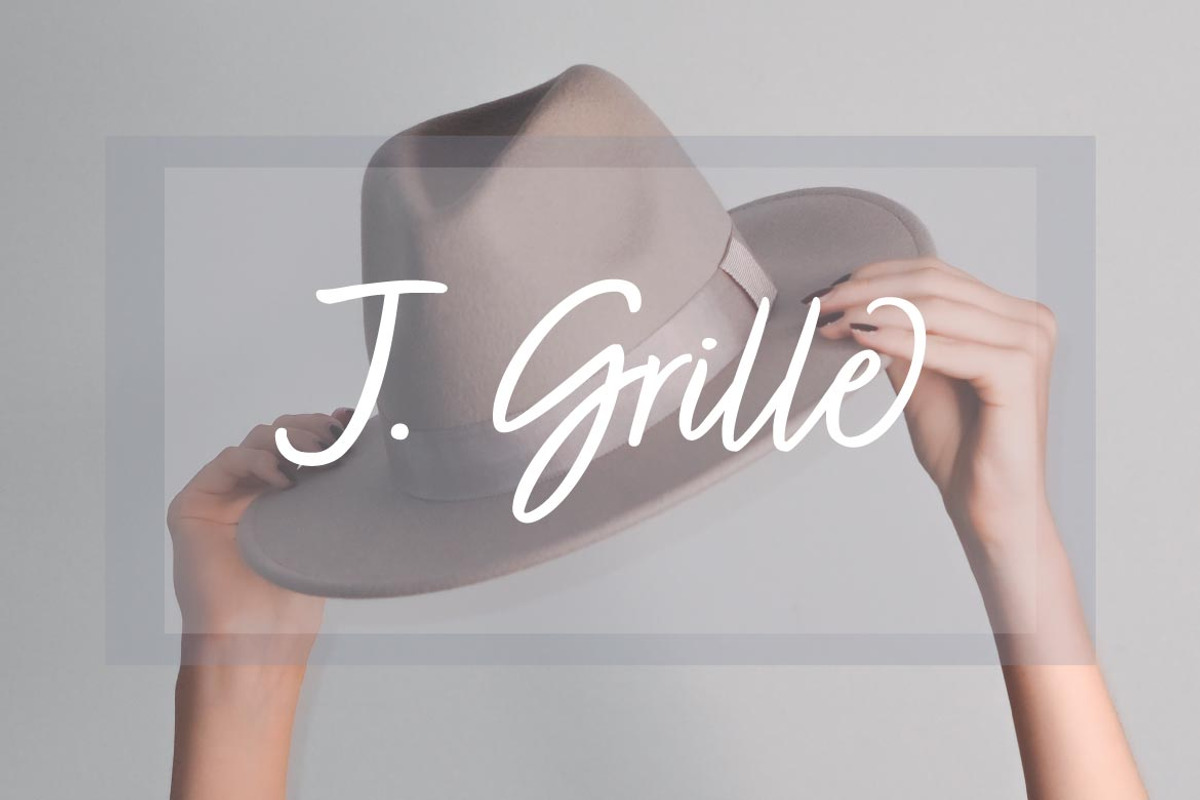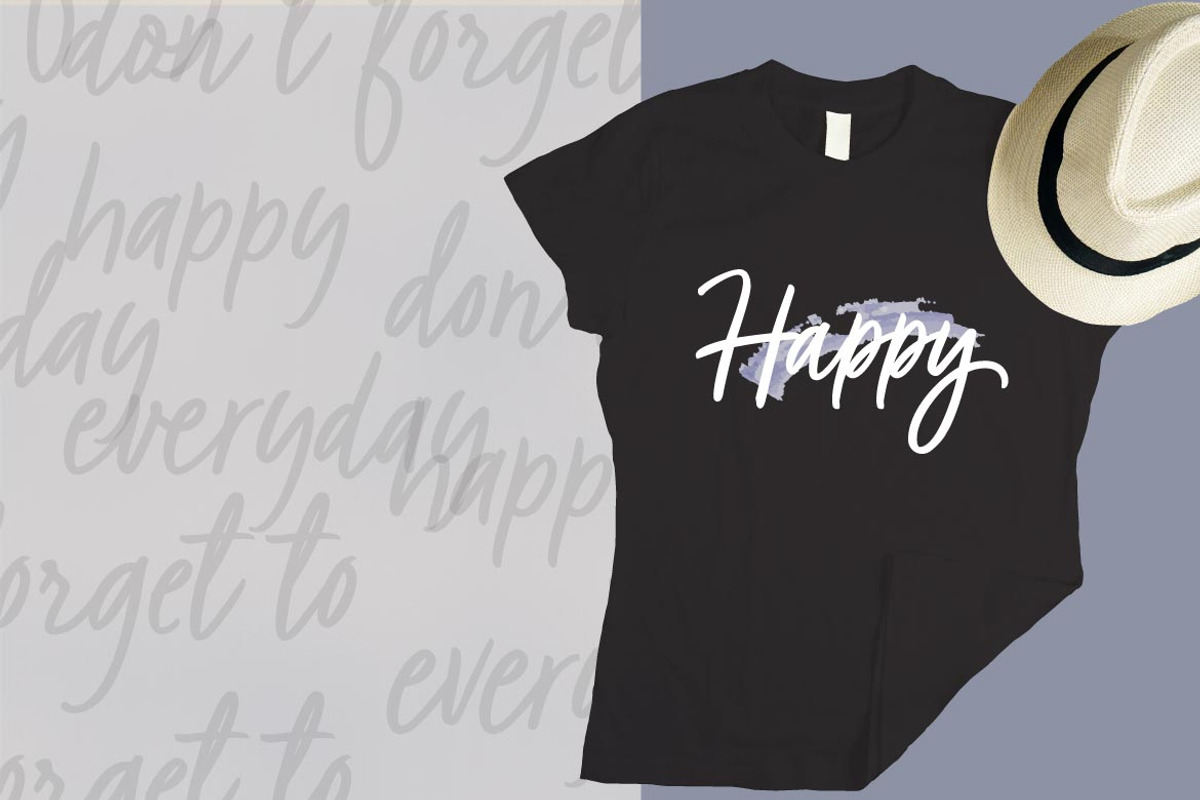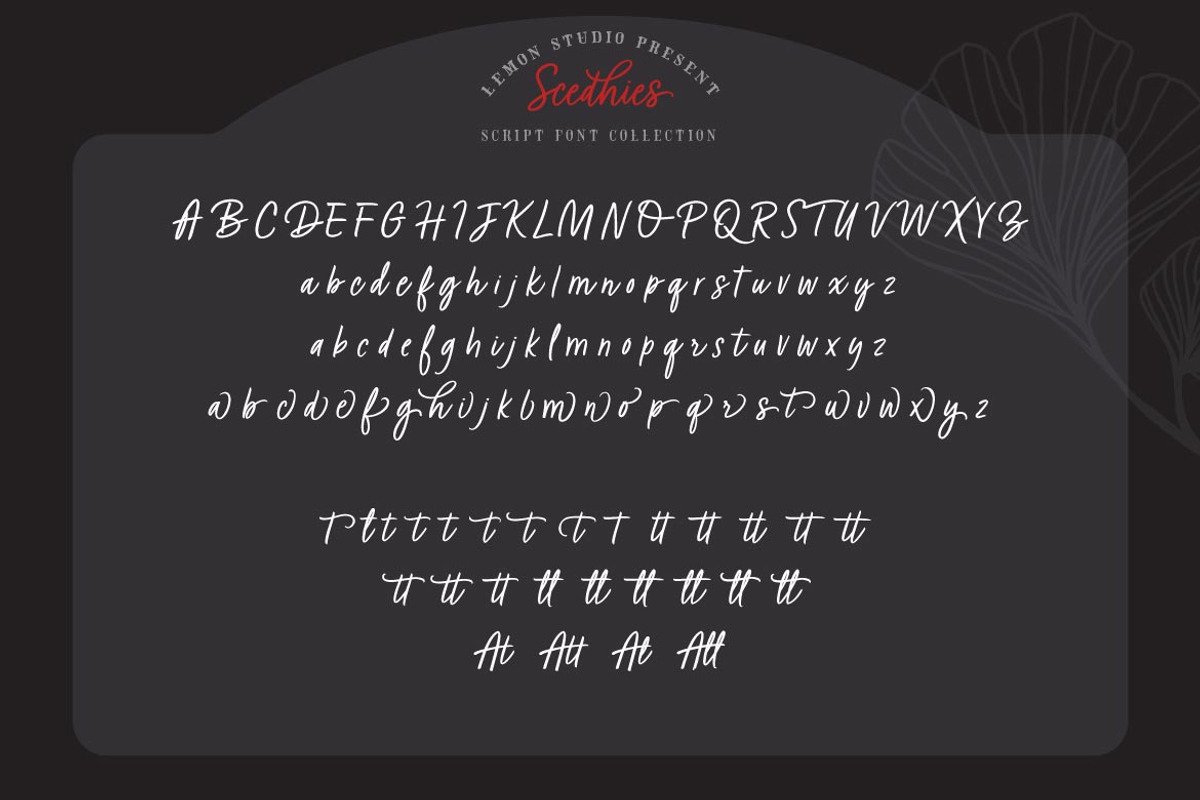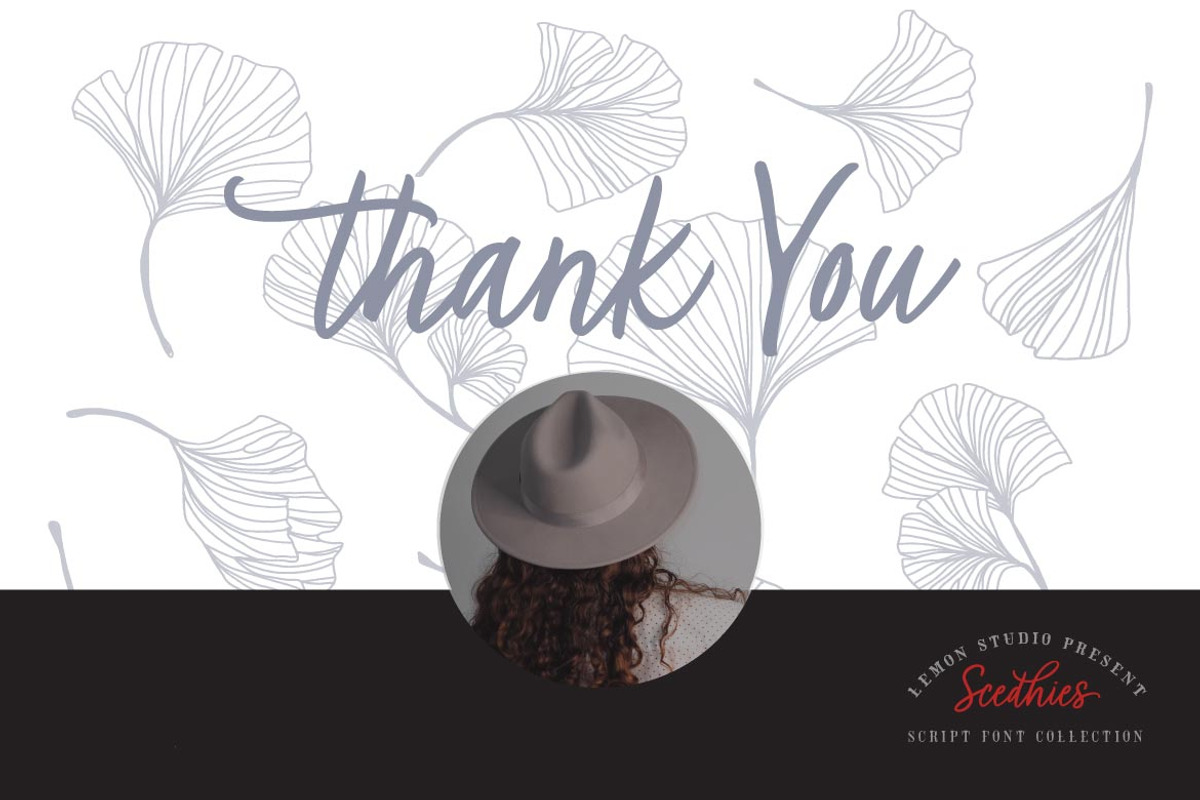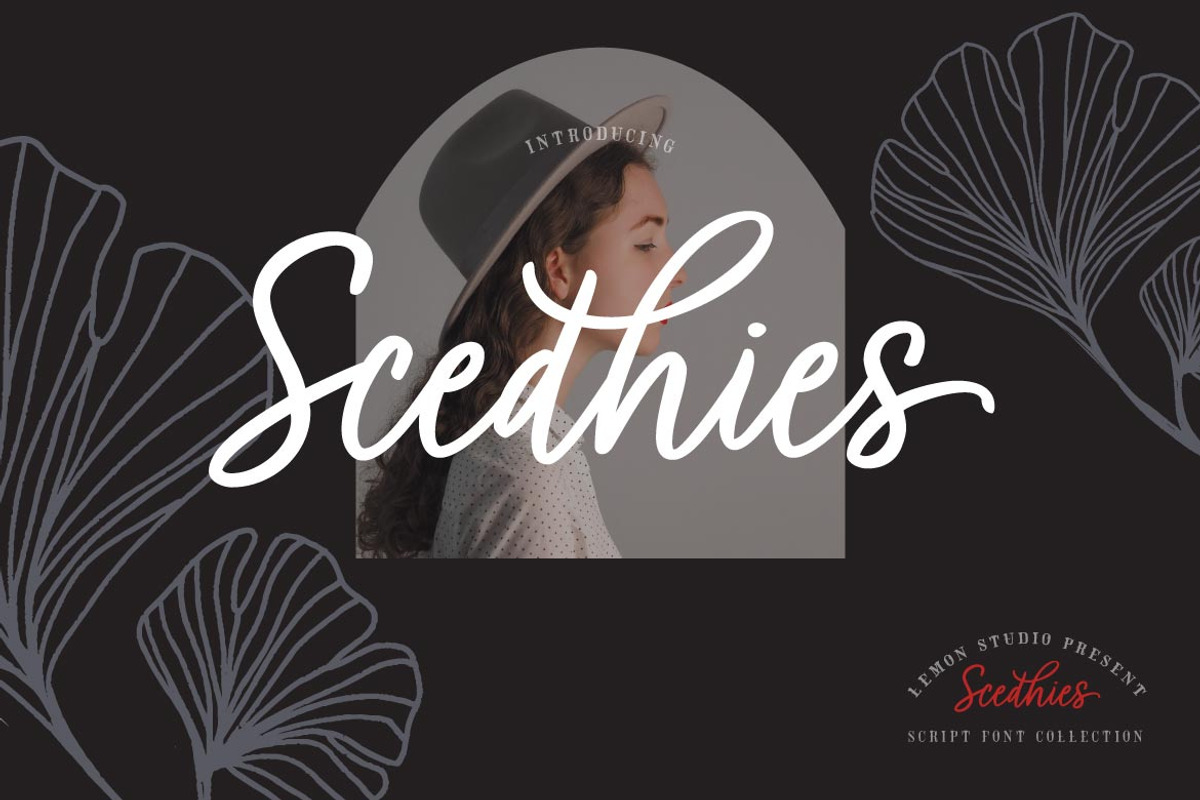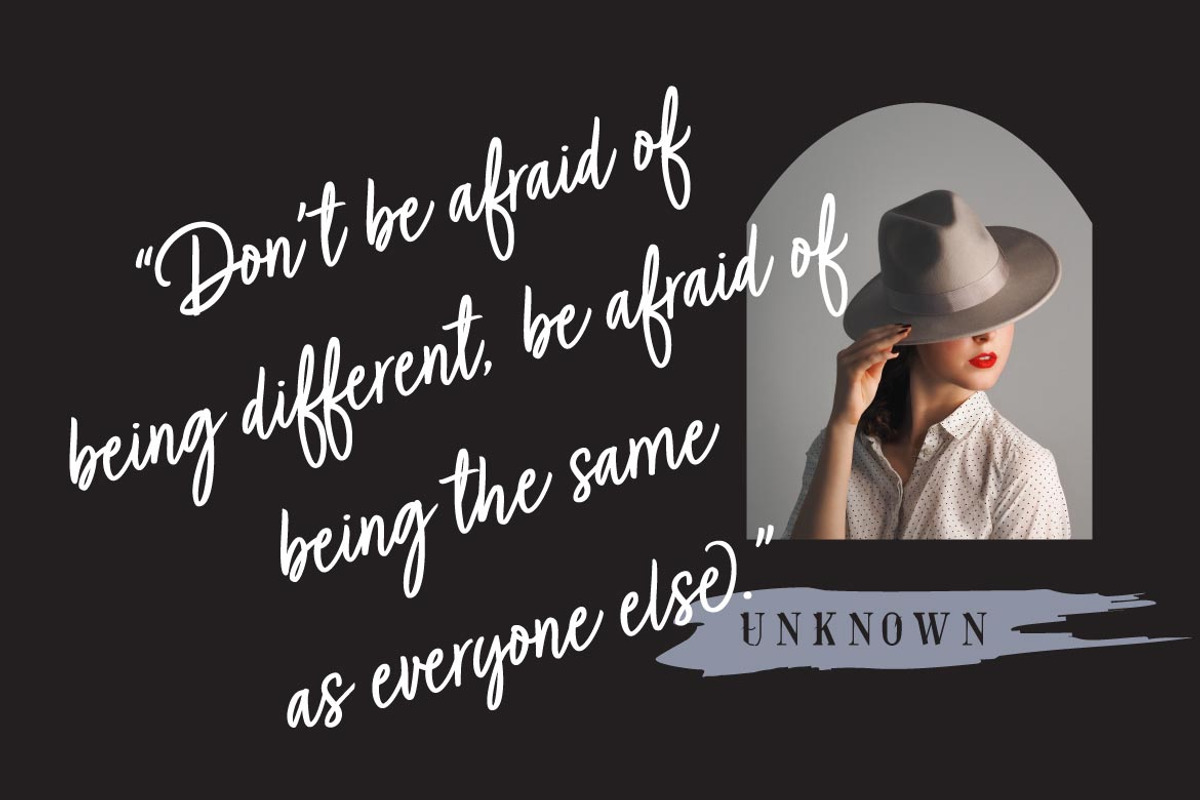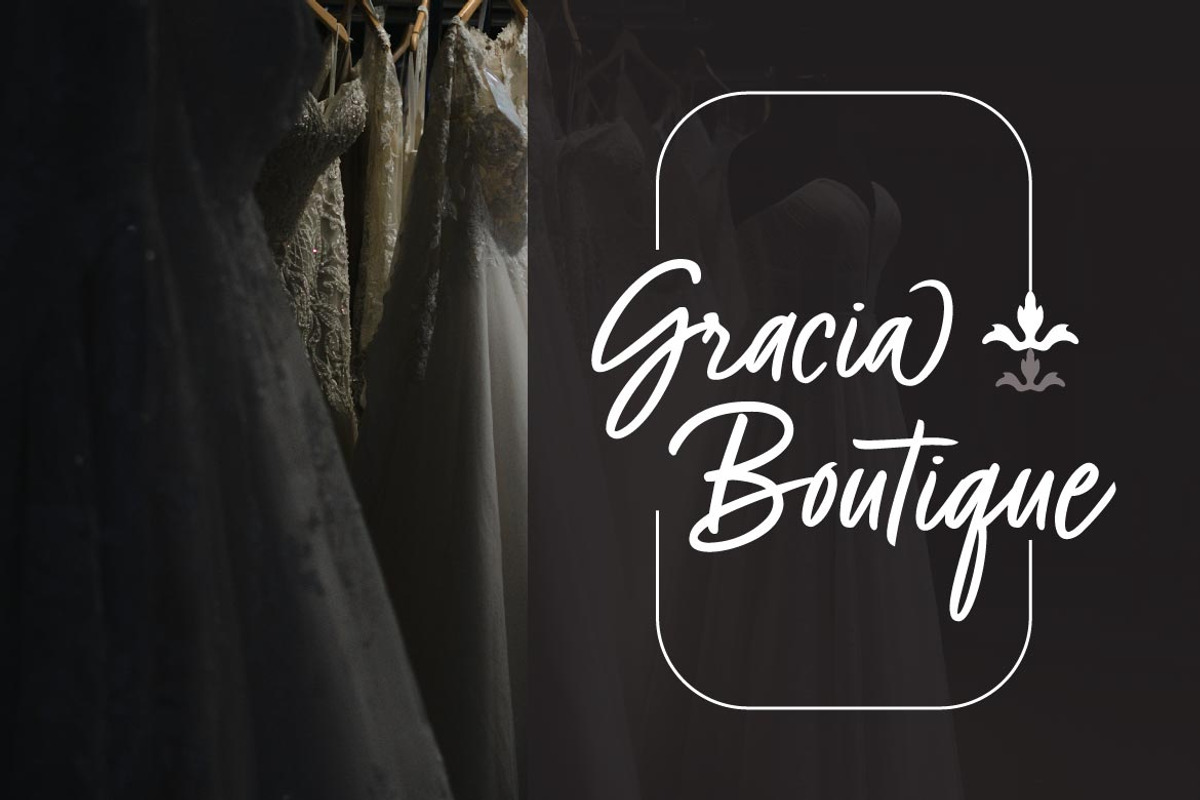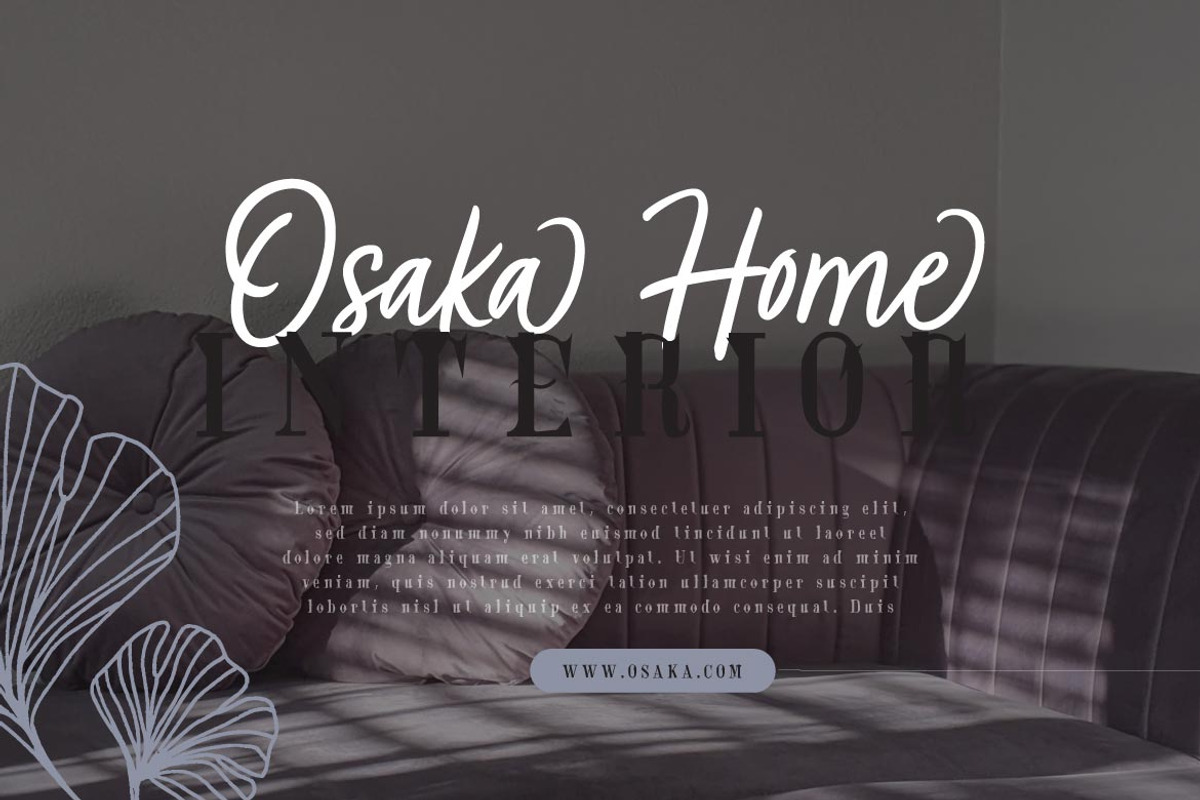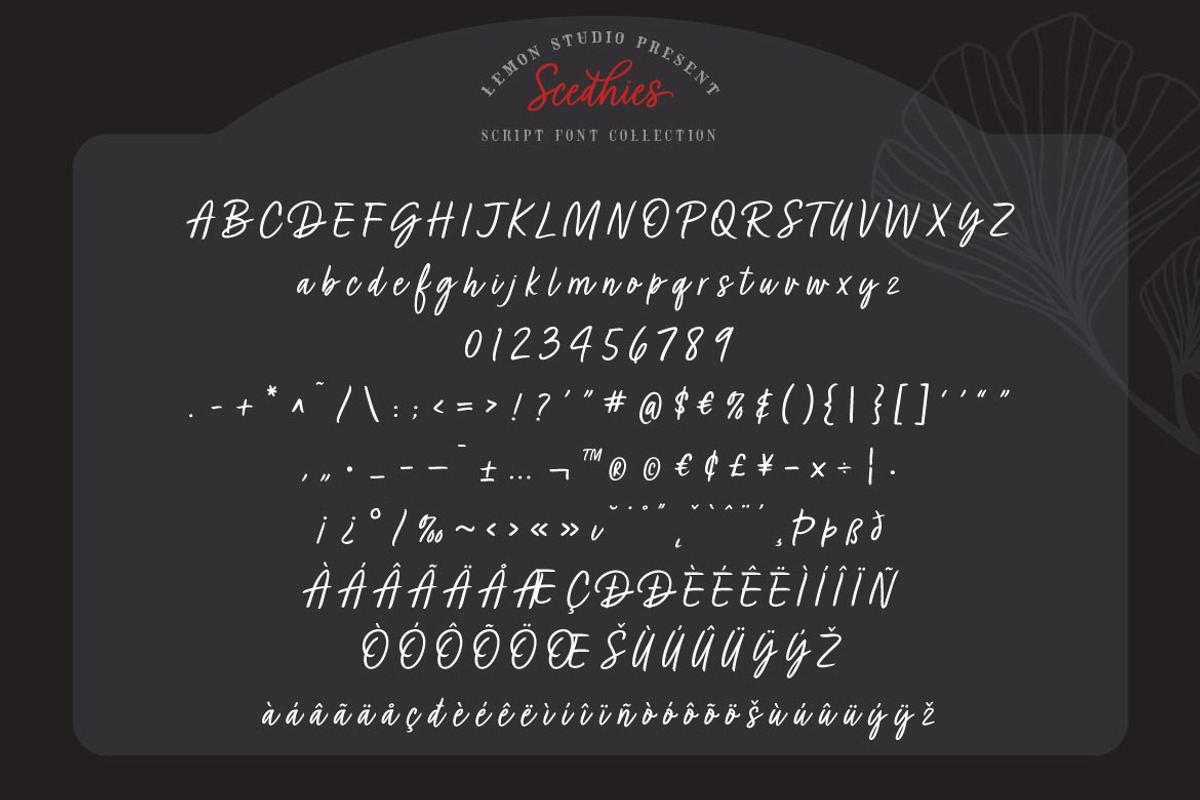
Scedhies - Script
Scedhies script font is a stylish and delicate script font. It has a clean, thin and smooth vibe and it will be a hit for any design that you want to add it to.
Scedhies included with several additional features like alternative, swash, and ligature. And it gives you a choice of attractive and beautiful options to apply to your work.
OPEN TYPE FEATURES:
-Stylistic Alternates
-Standard Ligatures
-Multilingual Support.